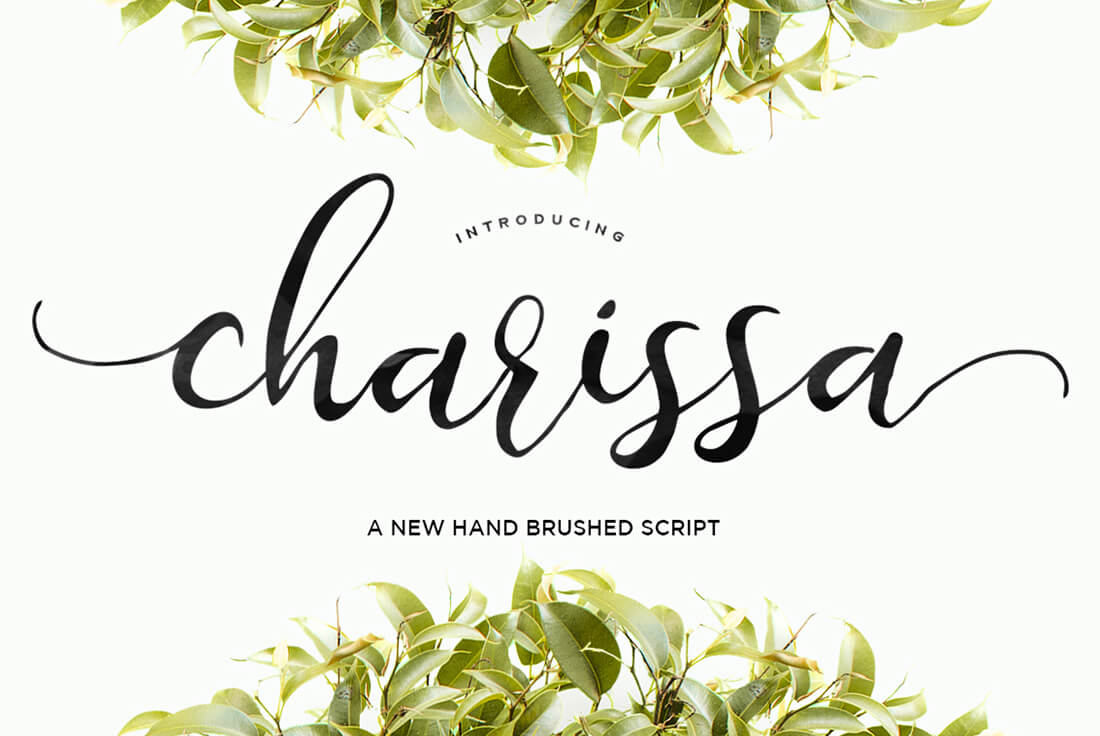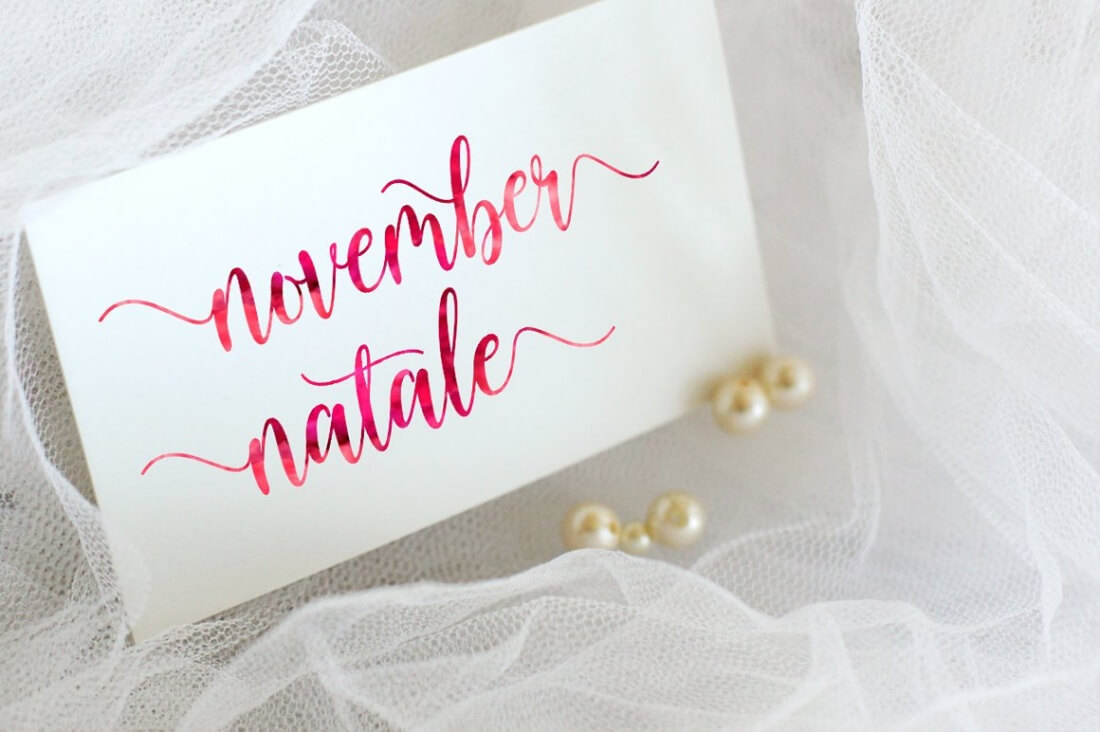
Need some new life in your font collection? Then look no further! This Mighty Deal from Area Type Studio features 20 professional handwritten fonts that are the perfect choice for everything from wedding invitations to posters. With multilingual support, encoded characters and plenty of OpenType Features, you're getting a massive bargain at basically less than $1 per font!
- 20 Professional, Premium handwritten fonts.
- Perfect for variety of projects - wedding invitations, logos, packaging, greeting cards, mugs, totes, posters, signs, branding and more.
- OpenType Features - ligatures, stylistic alternates, swashes.
- Multilingual support.
- Additional PUA Encoded characters.